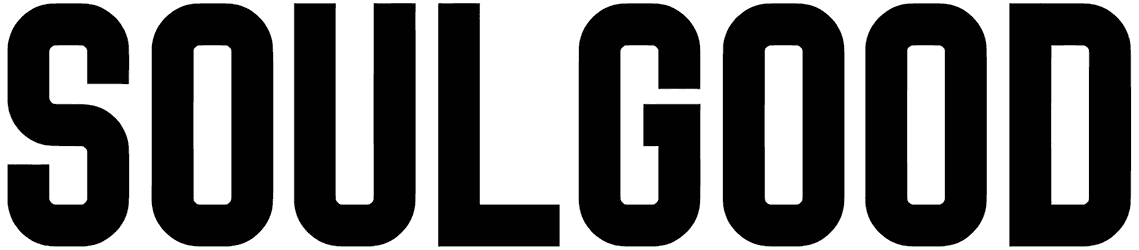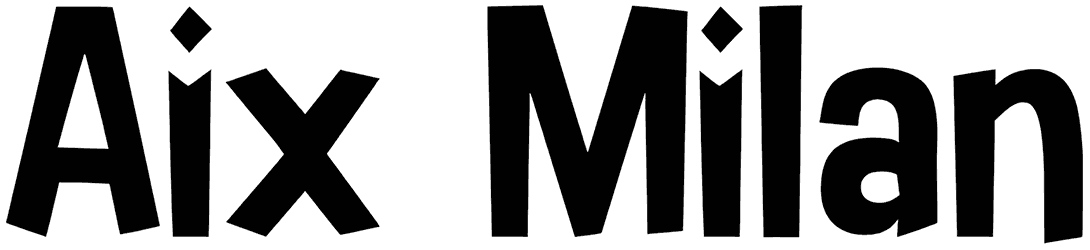
Adolphus Font
Sans serif fonts are getting popular more and more. Nowadays you can see thousands of types of them everywhere. Adolphus can be used for short or long passages. Fortunately, it has different styles and gives you the option to choose according to your demand. We bet it would be awesome on your typography projects!